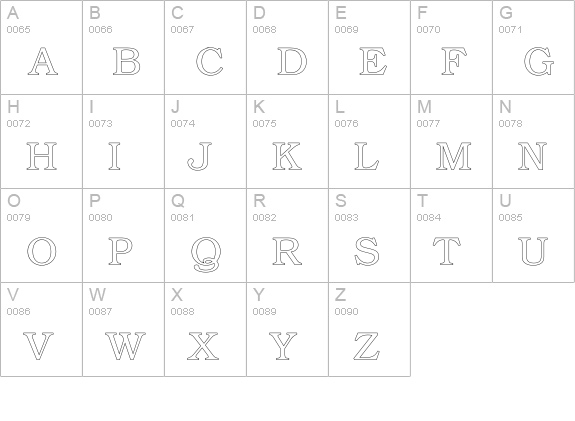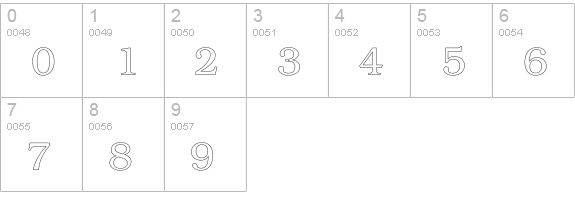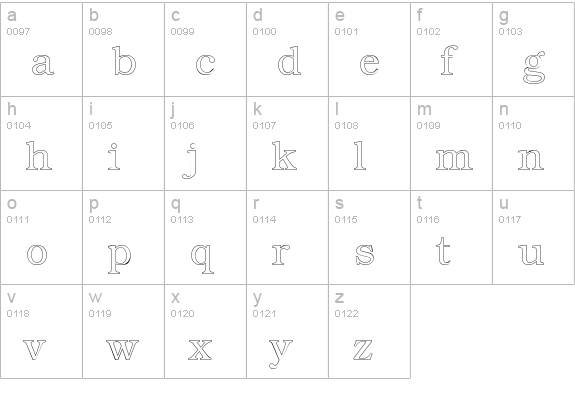
KacstTitleL Font Details
KacstTitleL font is a striking and versatile typeface that exudes a sense of modernity and sophistication. With its clean lines and elegant curves, this font is perfect for adding a touch of style to any design project. Whether you're working on a logo, website, or print material, KacstTitleL font will help you make a bold statement. One of the best things about KacstTitleL font is that it is completely free to download. You can easily access this font at FontsMarket.com, where you can quickly and conveniently add it to your font library. With its high-quality design and wide range of characters, KacstTitleL font is sure to become a go-to choice for all your design needs. Download it today and elevate your projects with this exceptional typeface.